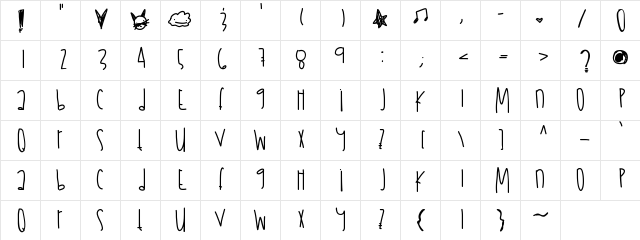
JulyFireworks Medium Free Font
JulyFireworks Medium
Design Context for JulyFireworks
JulyFireworks is a composed and adaptable typeface that performs quietly and consistently across a wide range of design contexts.
Pro Tip: Use JulyFireworks in both headline and body roles to test its range before committing to a single application.